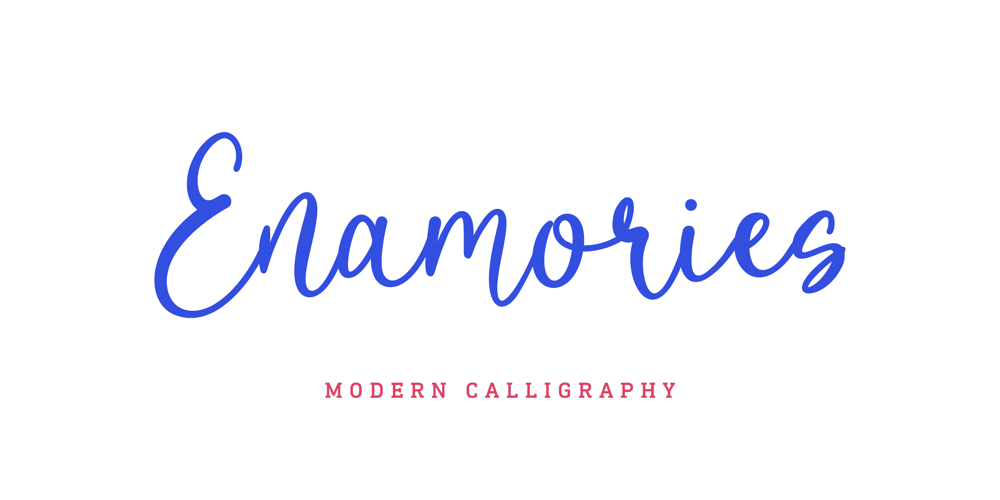
Enamories Font Family was designed by Eko Kurniawan and published by Atom. Enamories contains 1 styles and family package options. Enamories is modern handwriting combines the elegance of traditional calligraphy with contemporary design. It is a visual delight that captures the essence of personality and creativity. Each stroke tells a story, each letter a testament to the writer’s individuality. With the advent of digital communication, the art of handwriting has evolved into a form of personal expression that stands out in a world of typed text. Beautiful modern handwriting is not just about legibility; it is about character, style, and the human touch in the digital age. Whether it is the smooth curves of cursive or the sharp angles of print, modern handwriting offers a unique blend of form and function that is both aesthetically pleasing and deeply personal.Have a nice day! 😉